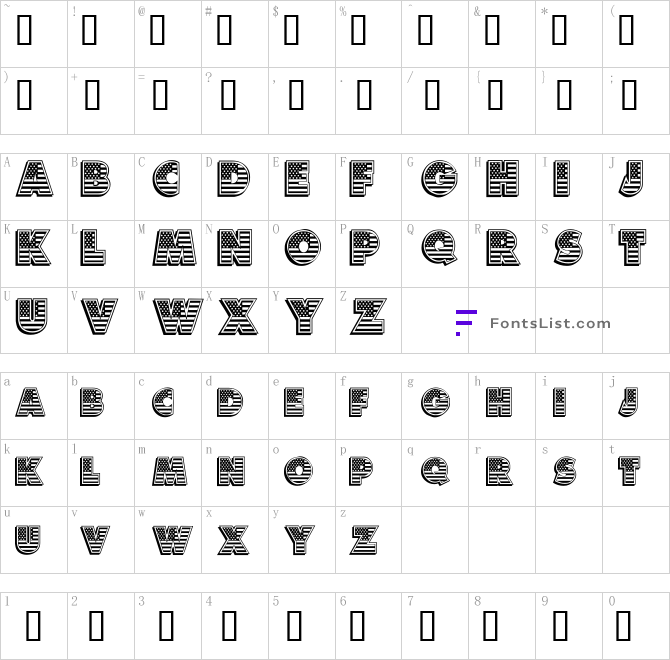
- Font Name:American Dream
American-Dream.ttf is a very beautiful artistic font, American-Dream.ttf is widely used in the design and printing of various books and pictures,American-Dream.ttf has a strong visual impact,American-Dream.ttf is a commonly used font in newspapers, magazines and books, and is used in posters, e-commerce Poster design, store design, logo design, font design and other fields.American-Dream.